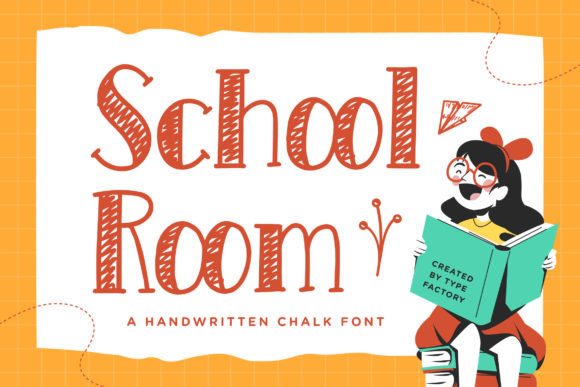
Welcome to the enchanting realm of School Room Font, a whimsical serif typeface that will ignite your creative spark and transport you to a world of playful imagination. Step into a classroom of endless possibilities, where learning and laughter dance hand-in-hand.
School Room Font is the ultimate choice for those seeking a font that exudes childish glee and educational charm. Its playful strokes and charming curves evoke the carefree spirit of childhood, making it perfect for projects that aim to capture the essence of youth and innocence.
Whether you're a teacher crafting engaging lesson plans, a designer conjuring up whimsical invitations, or a parent creating cherished memories, School Room Font will add a touch of magic to your creations. Its versatility extends beyond the classroom, effortlessly gracing restaurant menus, digital designs, presentations, and greeting cards with its lighthearted touch.
Immerse yourself in the world of School Room Font and let your imagination soar. Its playful personality and educational appeal will captivate your audience, leaving a lasting impression that will make them smile long after they've turned the page.
With School Room Font at your fingertips, you'll never run out of ways to express yourself in a fun and engaging way. So why wait? Embark on a creative adventure today and let this enchanting font add a touch of whimsy to your next project!